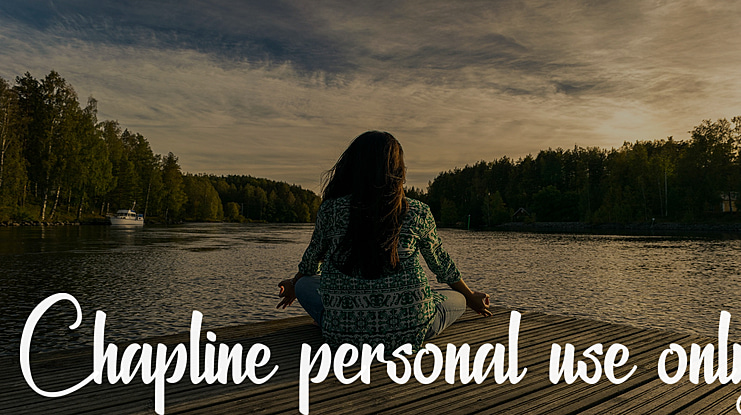
Chapline personal use only Font
introduce "Chapline". script font that just released
fonts that are equipped starting from uppercase, lowercase, punctuation, numbers, multilingual and there are ligature and alternates ..
Chapline personal use only font preview